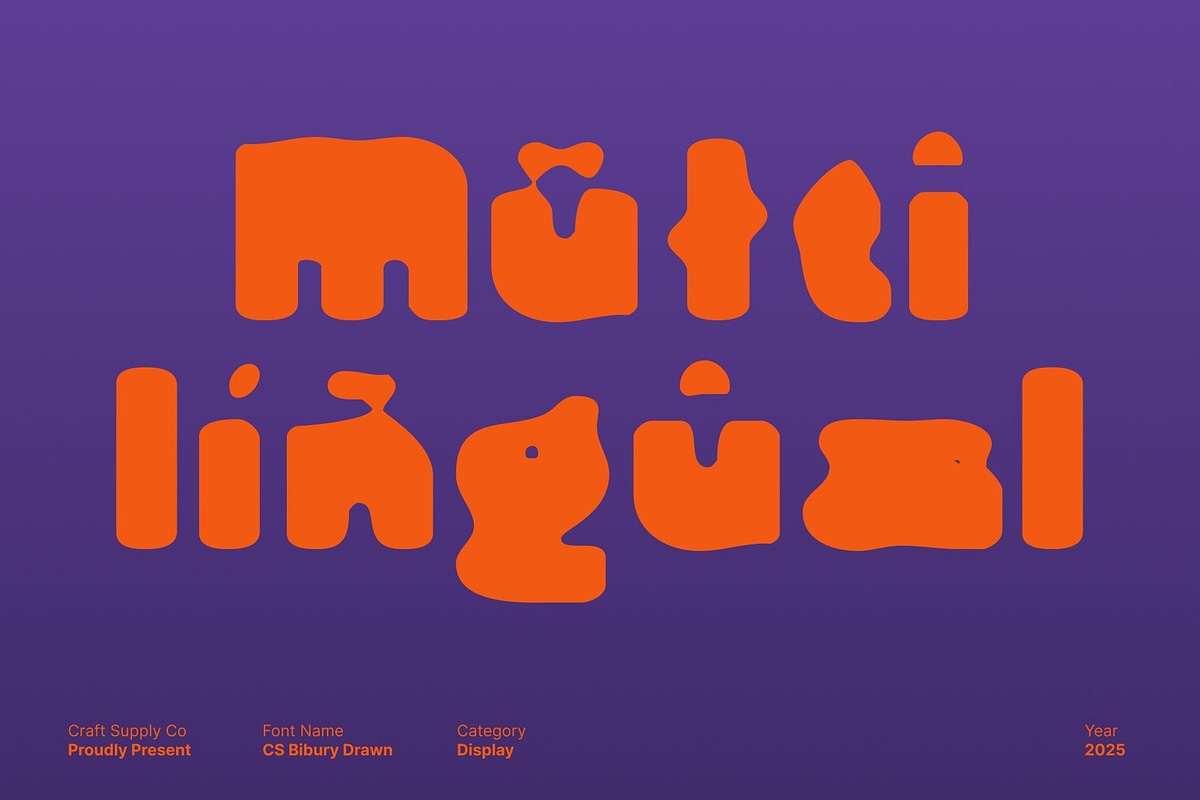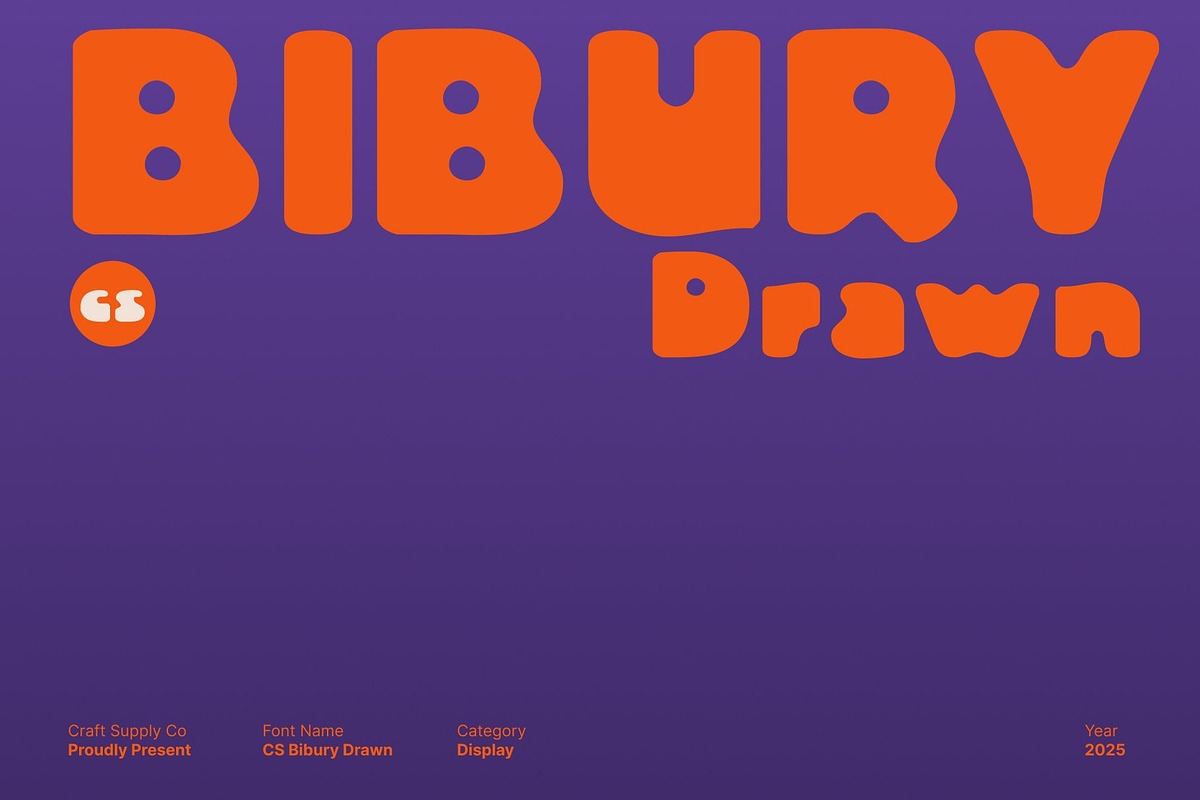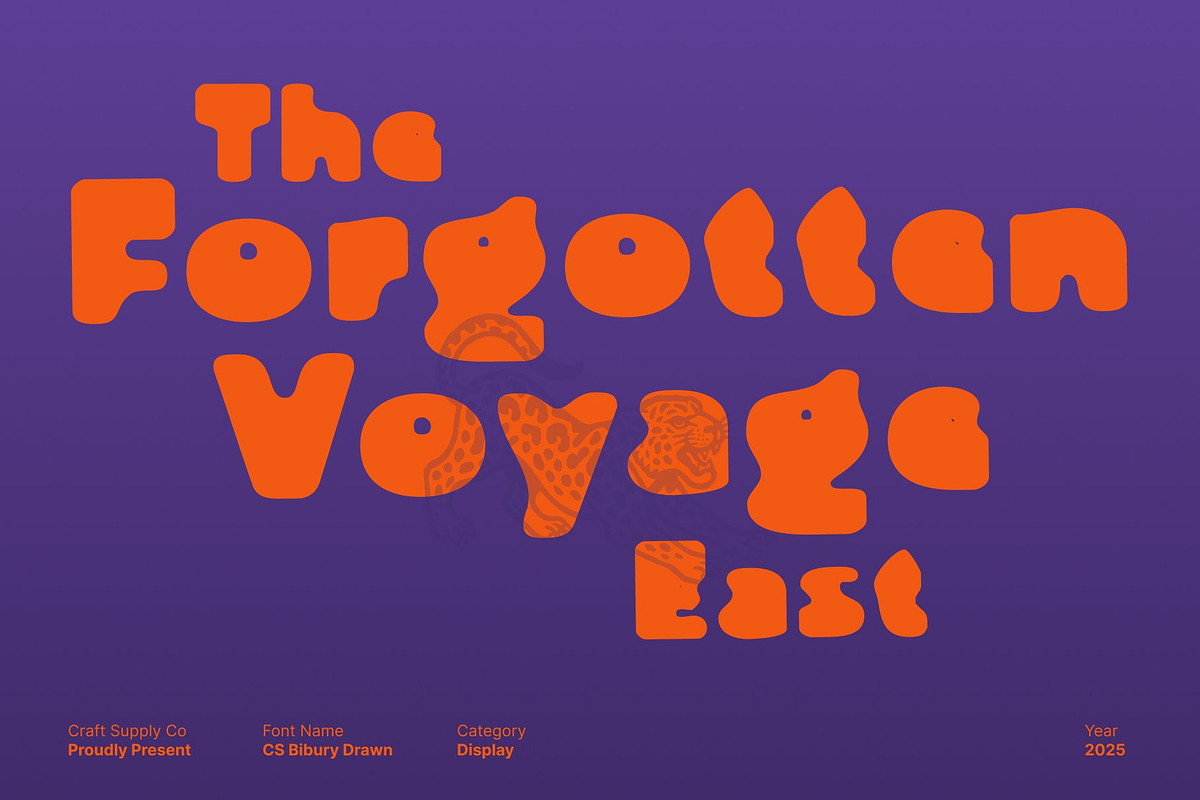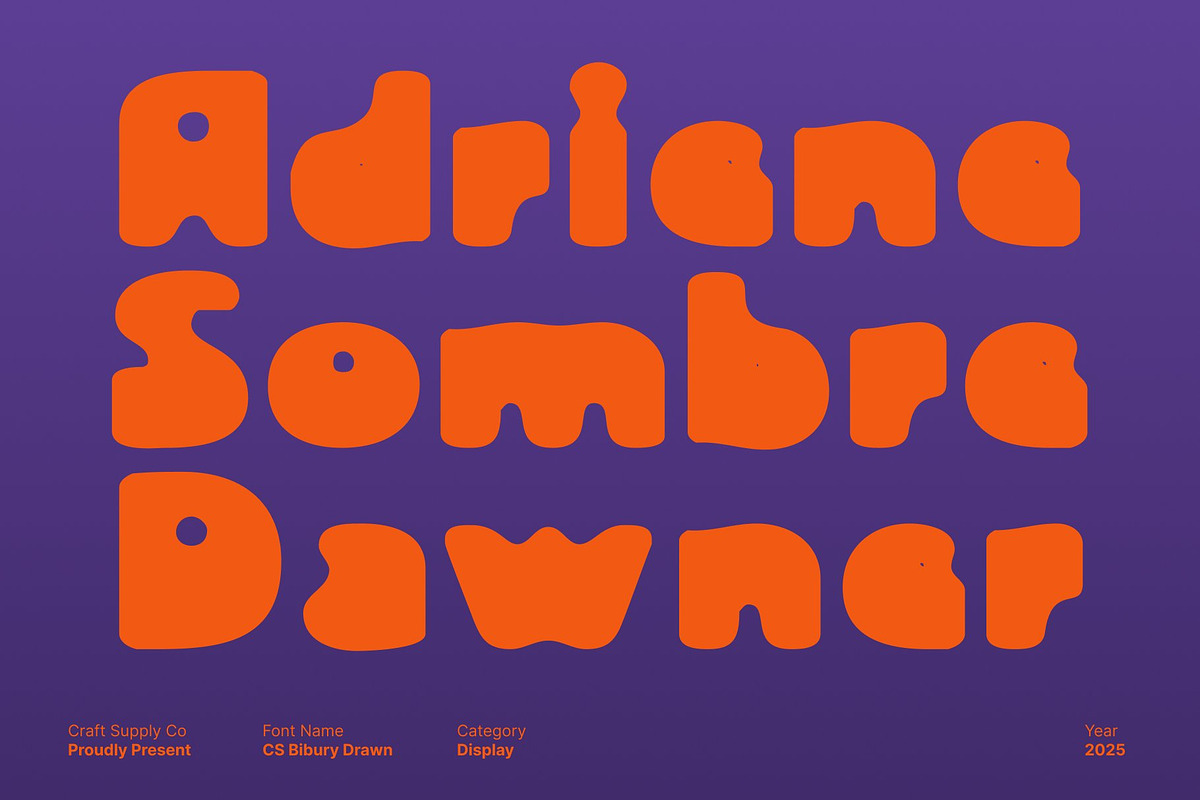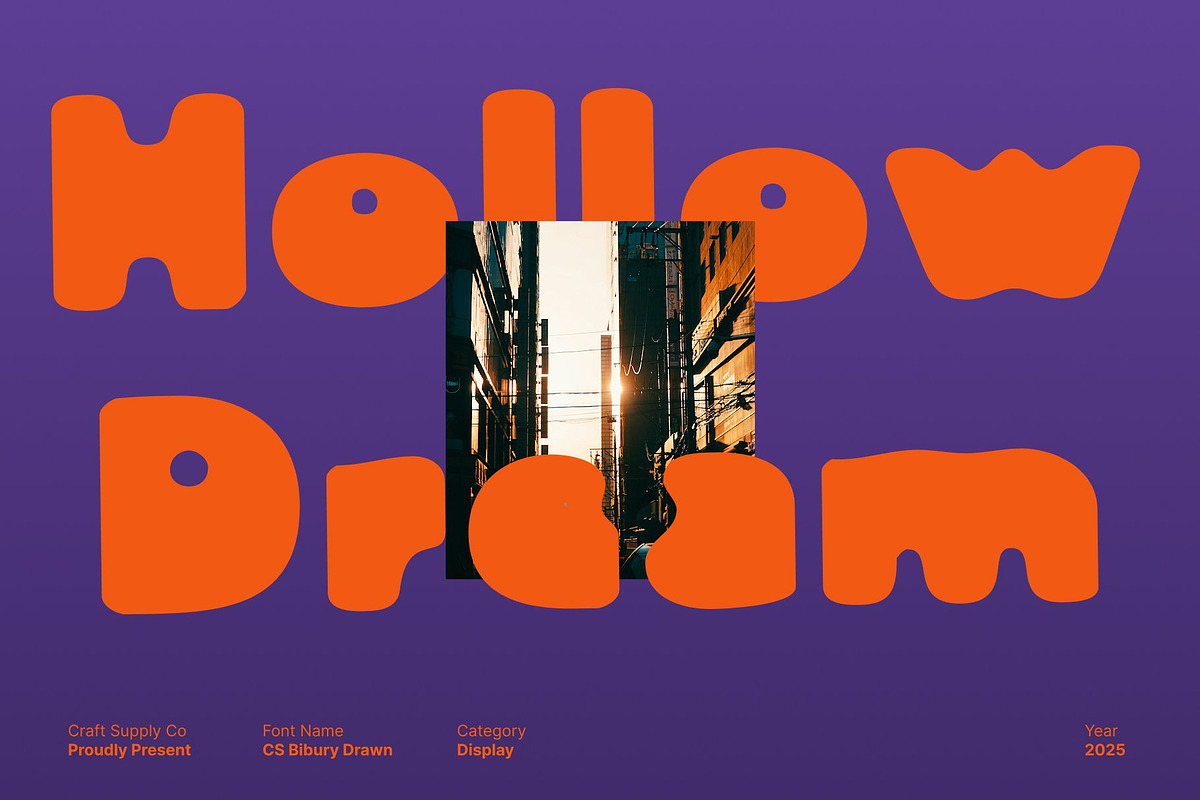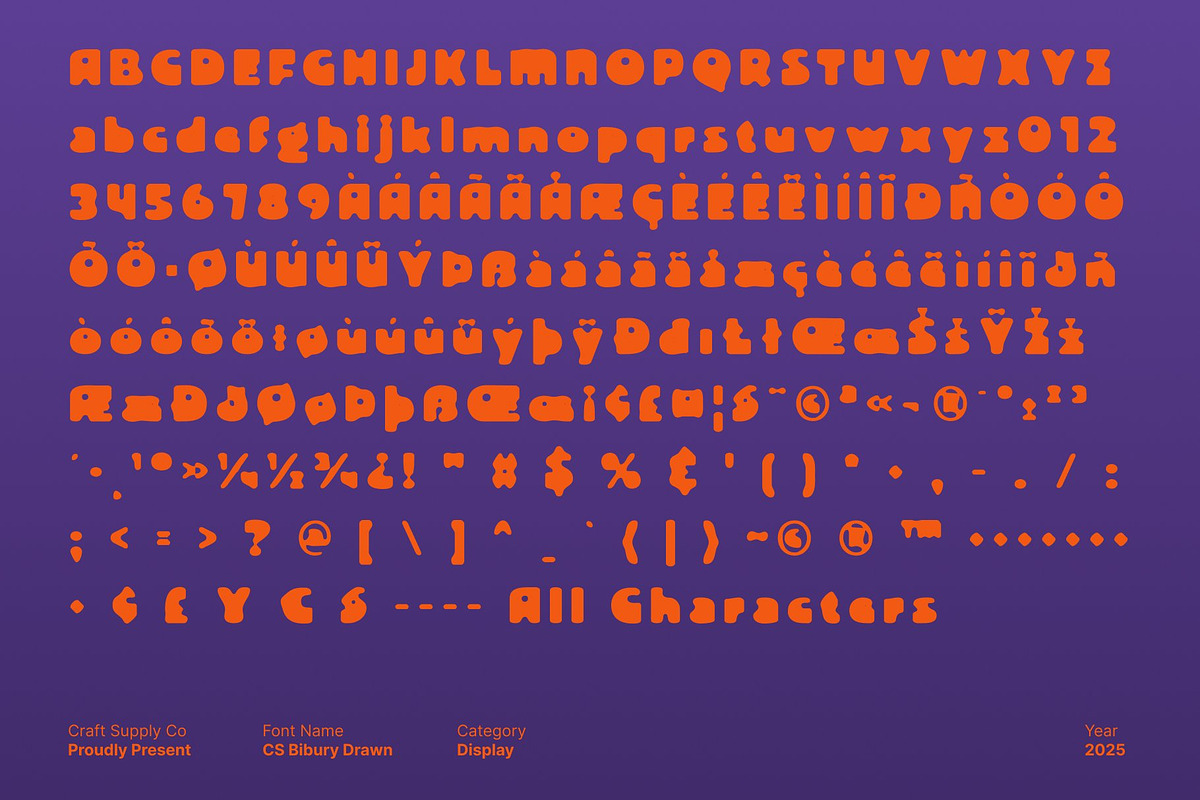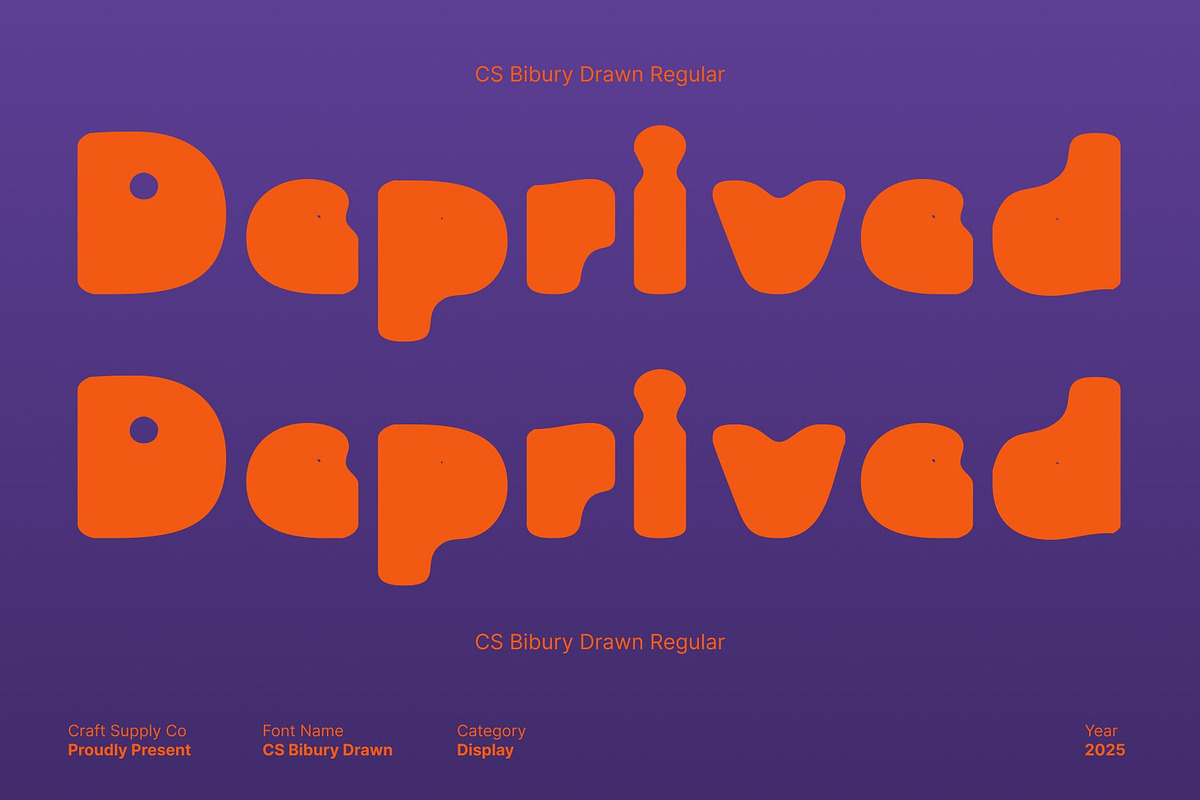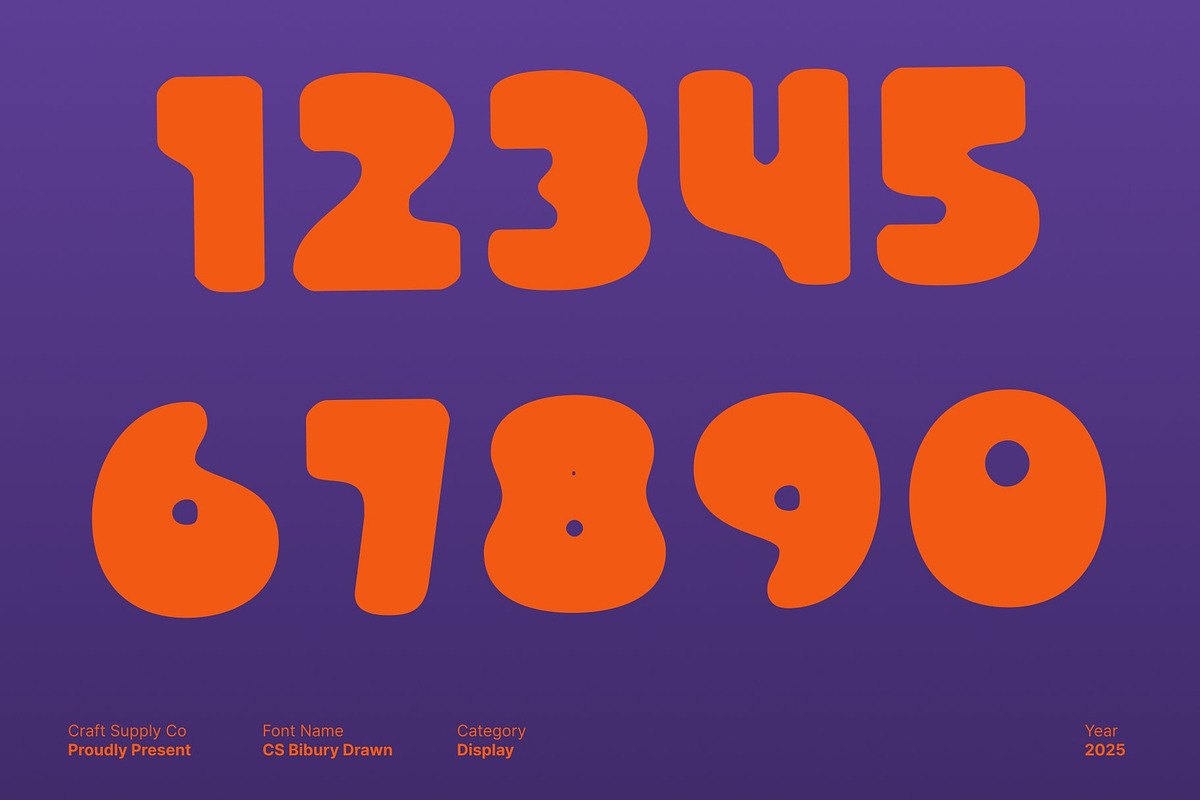
CS Bibury Drawn
CS Bibury Drawn – Bold Expression with a Handcrafted Edge
Hand-Drawn Display Sans Serif for Strong Visual Presence This is a bold display sans serif font designed to make an impact. Its confident letterforms and solid structure ensure every word stands out, while the hand-drawn effect adds a layer of personality and texture that feels genuine and artistic.
Expressive, Textured, and Full of Character Each stroke in this font carries the charm of handcrafted imperfection, blending power with creativity. The result is a typeface that feels both raw and intentional, perfect for eye catching headlines, modern posters, and branding that dares to be different.
Versatile for Creative Branding and Artful Design Ideal for logos, editorial titles, or packaging, this font balances bold design with organic charm, giving projects a distinct and memorable identity.
Where Strength Meets Artistry With its strong display form and authentic hand-drawn texture, this font captures attention and emotion alike making it the perfect choice for designs that want to stand out with creativity and confidence.